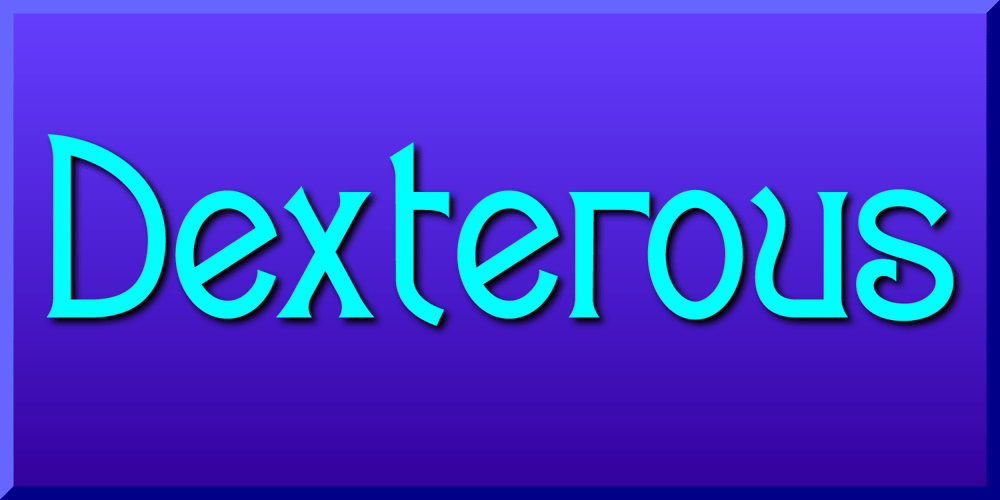
Dexterous Font Family was designed by Gerald Gallo and published by Gerald Gallo. Dexterous contains 1 styles and family package options. Dexterous is my interpretation of an antique typeface. The font includes upper and lowercase alphabets with alternate “E F L M S T” characters and alternate “c e m s” characters, numbers, punctuation, accented characters, symbols, and miscellaneous characters.